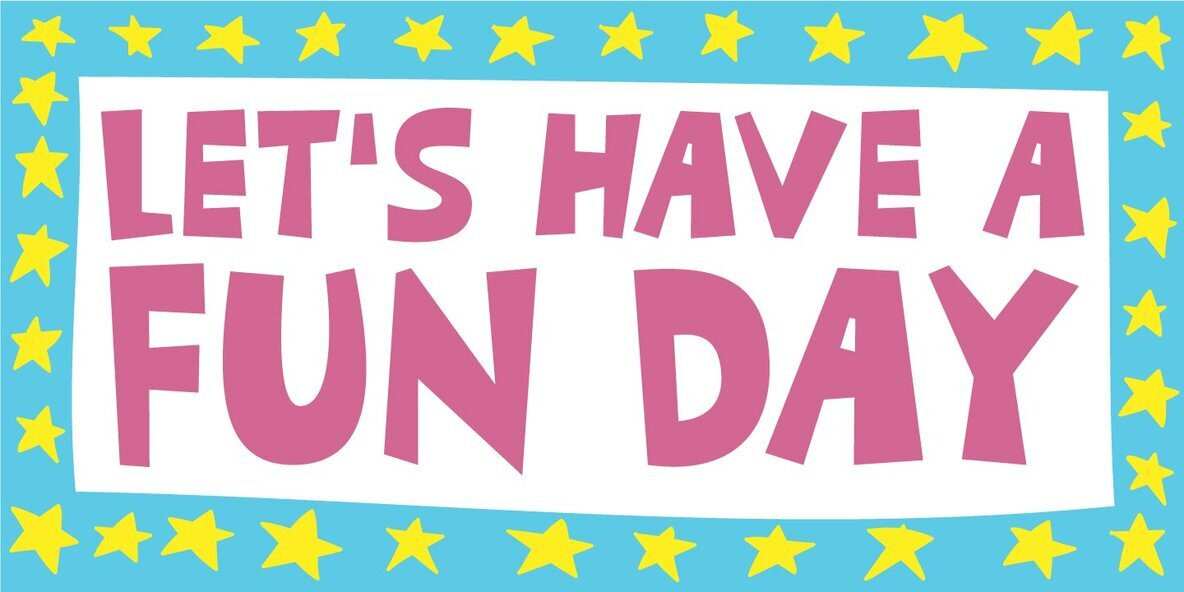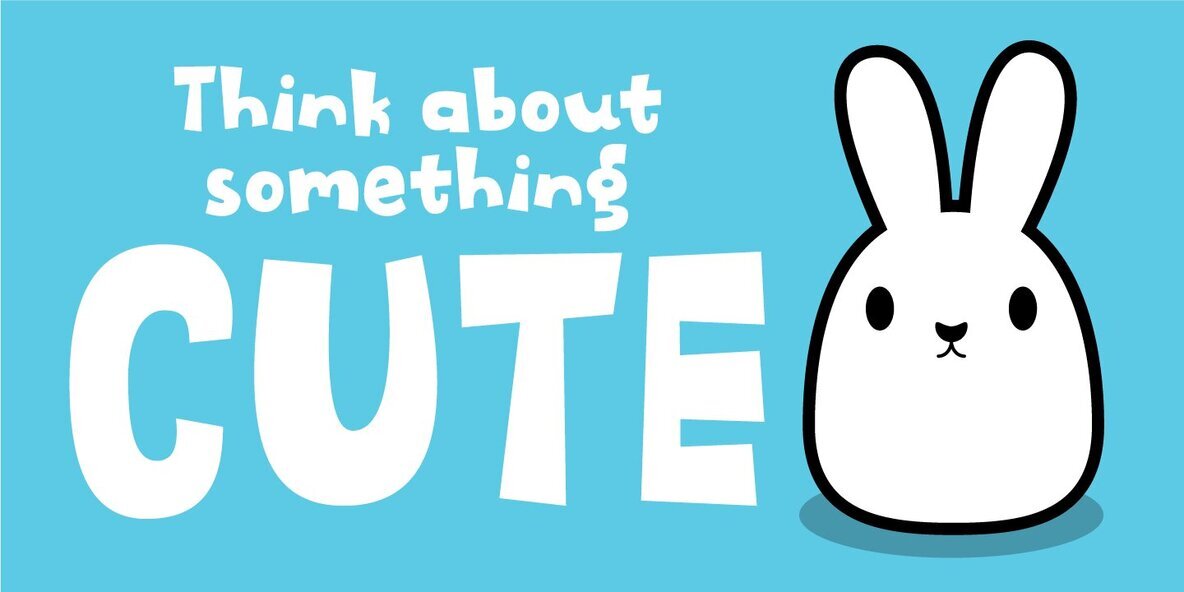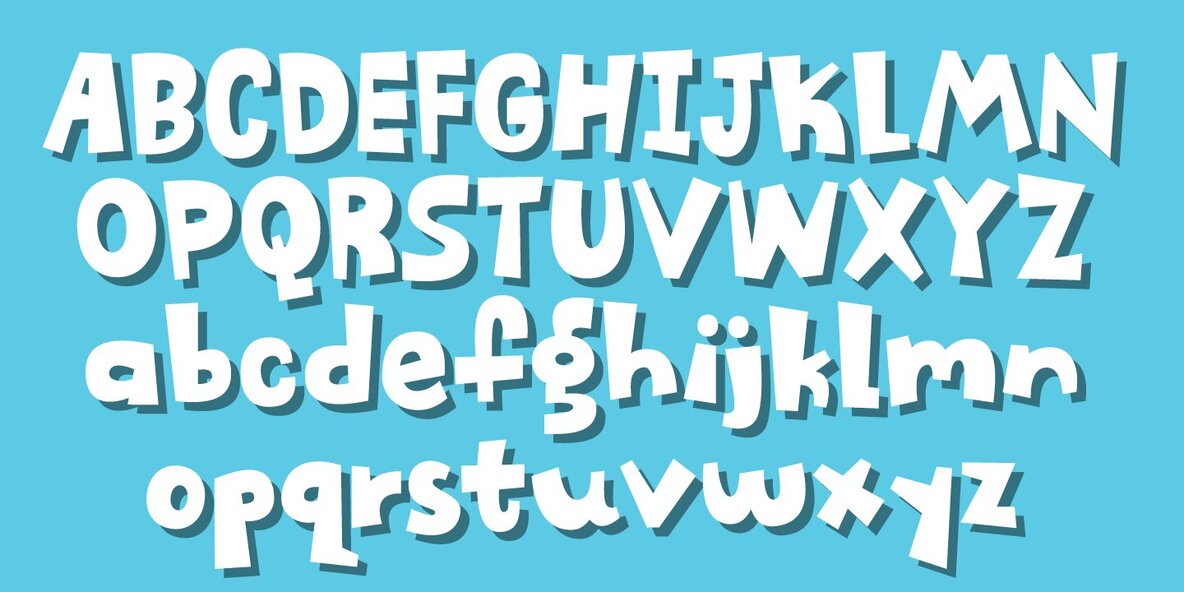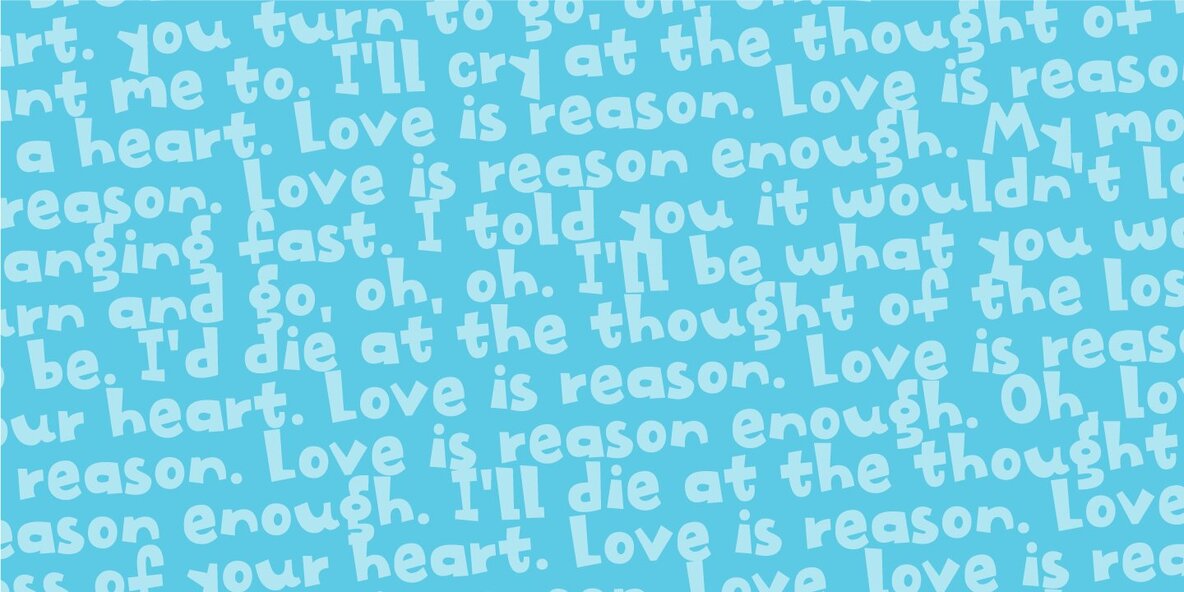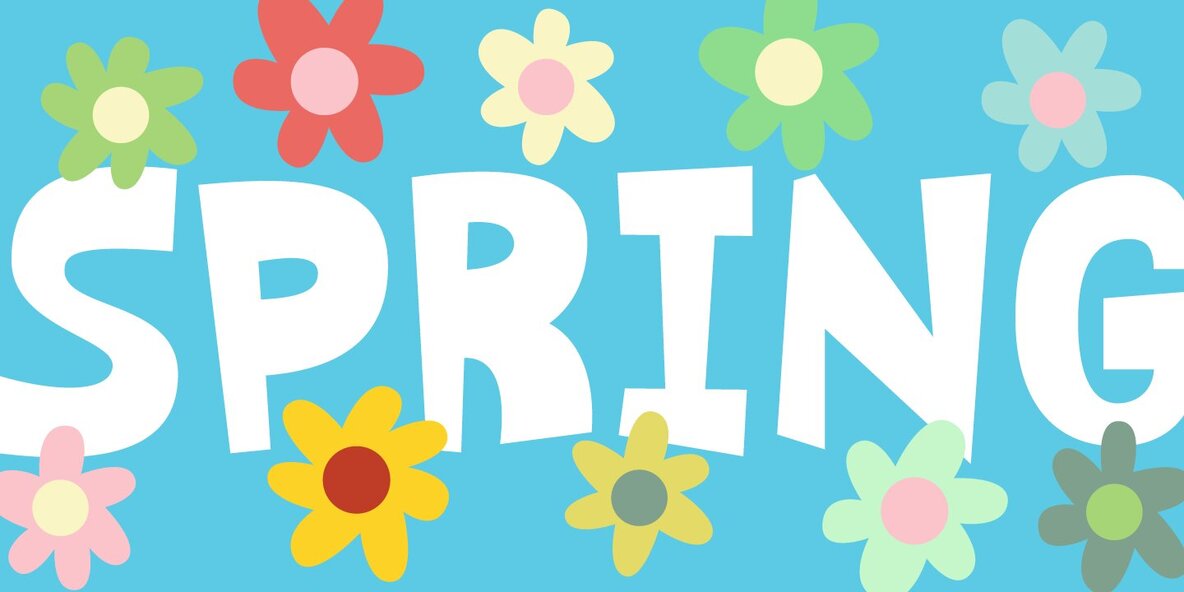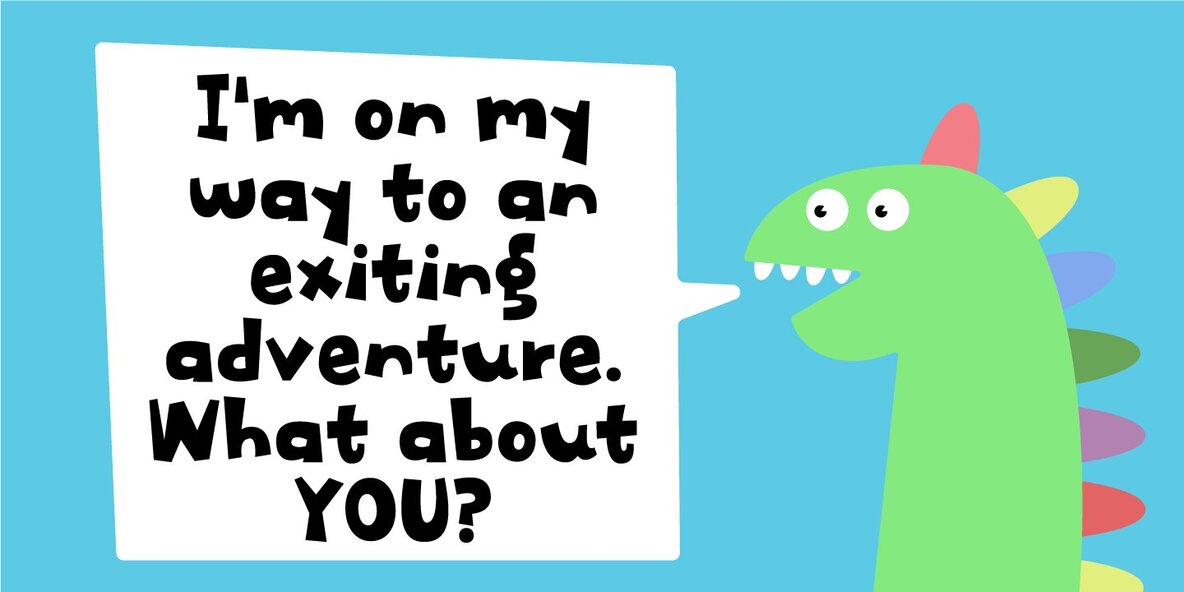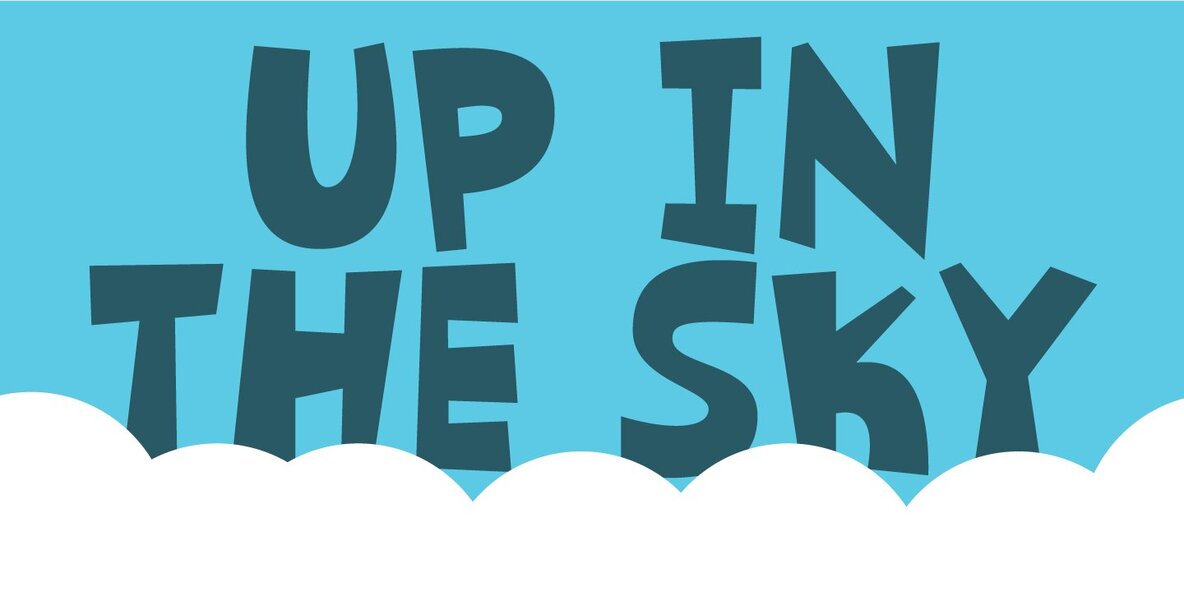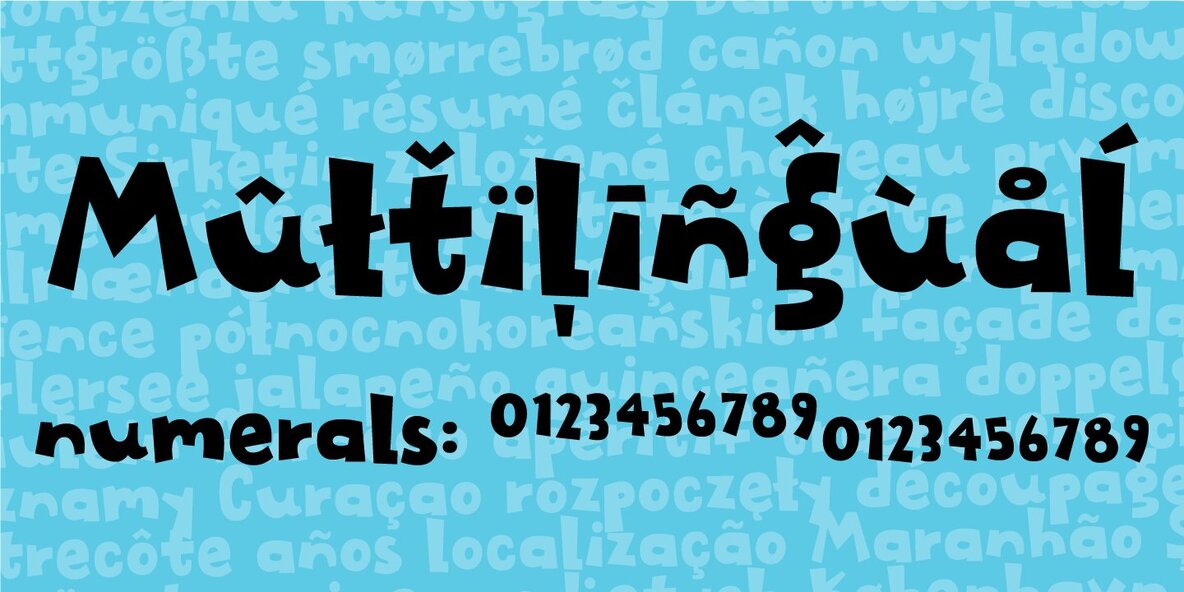
Empty Fridge Font
Empty Fridge is a delightful comic font designed by PizzaDude.dk, known for its crazy and unpredictable style. It defies typical typographic rules, inviting you to embrace the goofiness within each letter.Empty Fridge: A Wacky and Unpredictable Comic Font
Unique Features